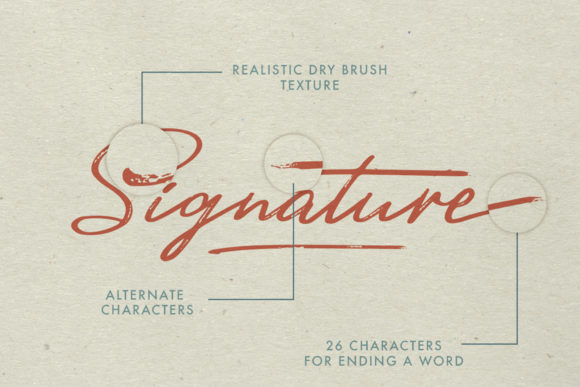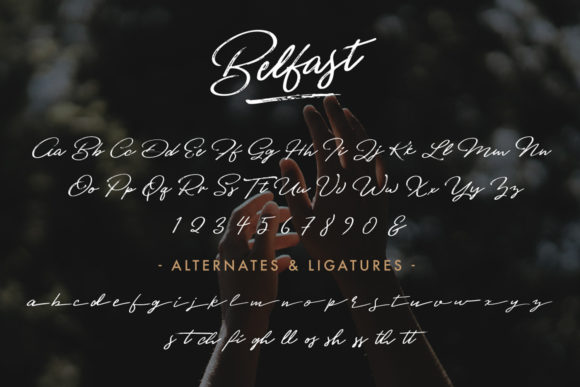
Belfast Font
db-ku.com - Script & Handwritten -- Belfast results out of a stunning pairing of a brush pen and pencil that makes it look incredibly endearing and authentic. Use this gorgeous and unique script font to bring any DIY project to life!